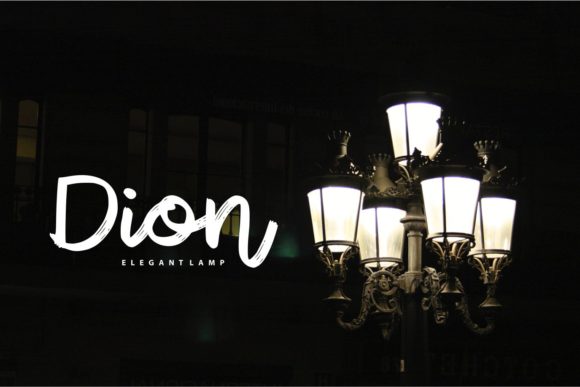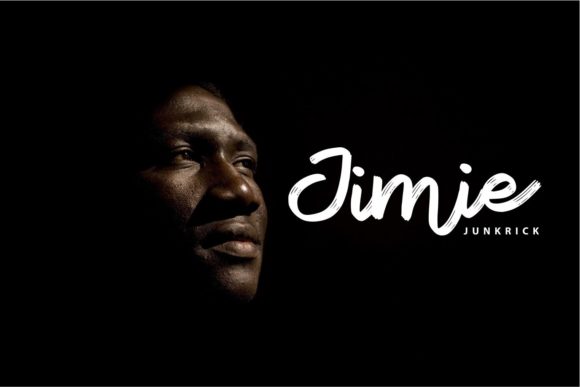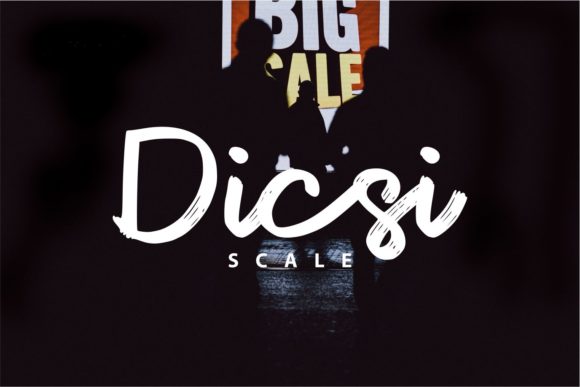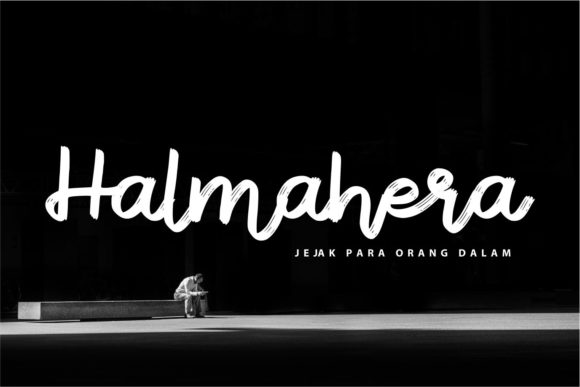
HomeScript FontsEcustic Font Script Fonts Ecustic Font FacebookXPinterestWhatsApp Ecustic Font Poster 2 Ecustic Font Poster 3 Ecustic Font Poster 4 Ecustic Font Poster 5 About Ecustic Font Ecustic is a simple, yet fun handwritten font with an authentic vibe. Fall in love with its casual feel! DOWNLOAD ON CREATIVE FABRICAThis font is sold and delivered by Creative Fabrica. Font Canyon may earn a commission if you buy through this link. People also explored Glenetta Font Chalkaholic Birmingham Font Neroli Sufler Antaro Font Bubly Font The Artemis Font Bigcake Font 301 0 TagsEcustic Font Previous articleHillstone FontNext articleButterfly Font LEAVE A REPLY Cancel reply Comment: Please enter your comment! Name:* Please enter your name here Email:* You have entered an incorrect email address! Please enter your email address here Website: Save my name, email, and website in this browser for the next time I comment. Personal Use Free Bintang Noela Personal Use Free Read more about this font BD Beans Personal Use Free Read more about this font Waverly Date Personal Use Free Read more about this font Midnight Show Personal Use Free Read more about this font BLOG How to Cut Any Font on Cricut: Convert a Font to SVG (Free) Turn any font into a clean SVG so it cuts crisp on Cricut - a quick 3-step workflow using a free font-to-SVG tool. Best Fonts for T-Shirt Design – Top 2025 Picks Transform Your Website: Elevate Your Typography with 7 Best Web Font Generators Best Fonts for YouTube Videos: Make Your Thumbnails Stand Out